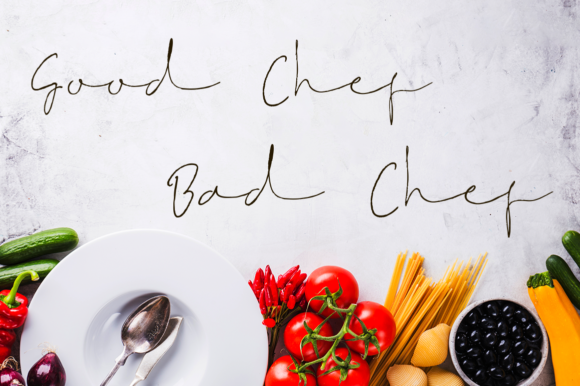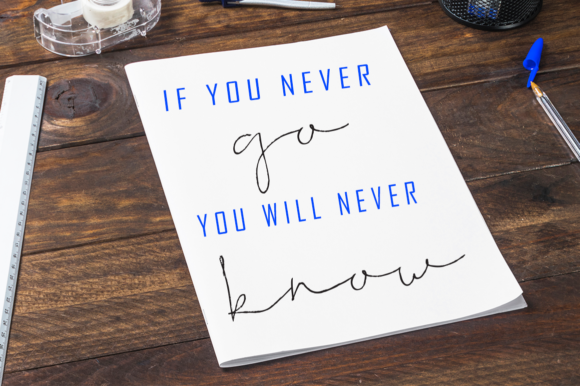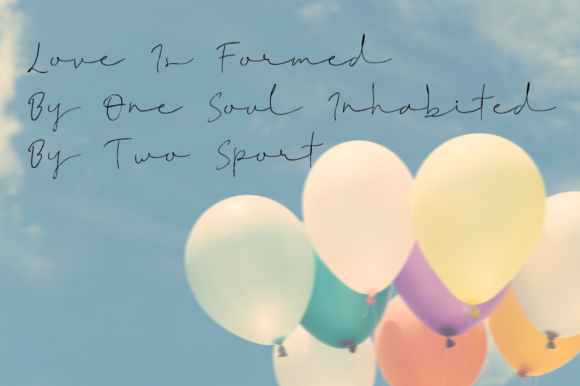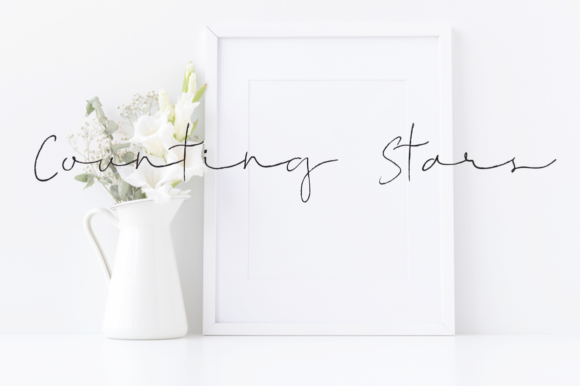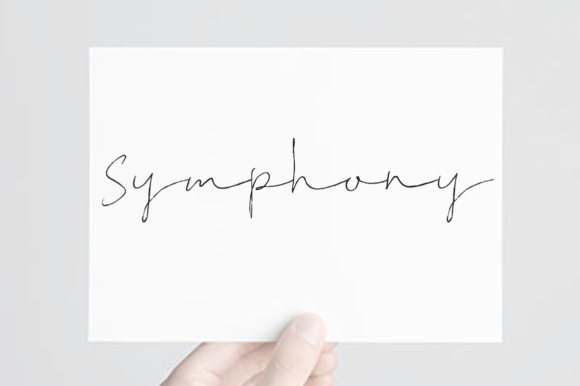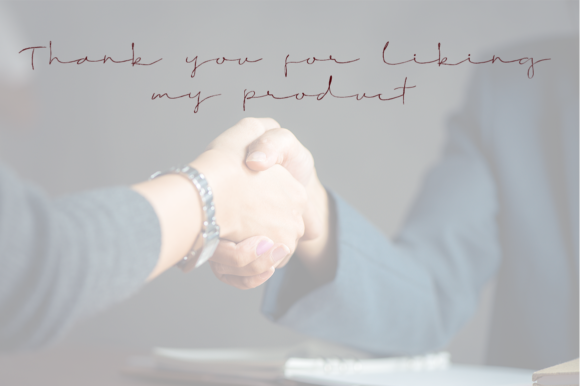
Pineapple Font
About Pineapple Font
The Pineapple is a modern, handwritten calligraphy font. It has a natural writing style and unique form of calligraphy.